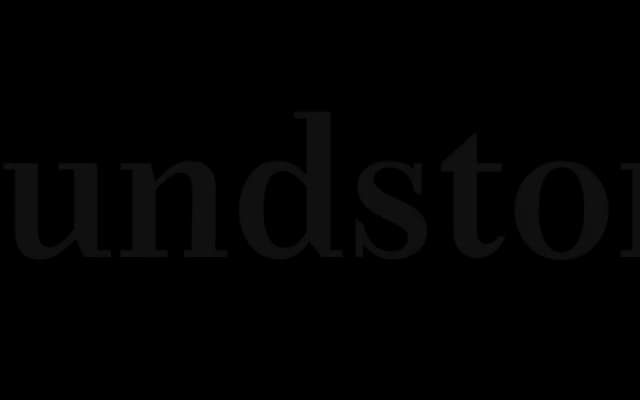
Mitim
Radim Pesko · Radim Peško · 2005
A bespoke serif with triangular serifs grown issue by issue for Dot Dot Dot magazine between 2005 and 2010, each variant responding to the changing conditions of production.
Designed by Radim Peško on commission from Dot Dot Dot magazine, the family expanded one member per issue across eleven instalments, with each new cut responding to the magazine's context, theme and production constraints. The brief cited Broadway display type and Wyndham Lewis's BLAST as references, asking for a semibold-weight text face suited to essays, captions and cover setting. Not available for licensing, Mitim remains a document of a typeface developed in public, shaped as much by editorial dialogue as by the designer's own decisions.
Characterised by triangular serifs derived from references including Broadway and BLAST, designed for text use in a magazine context but with a distinctly structural, display quality rooted in its geometric serif construction.